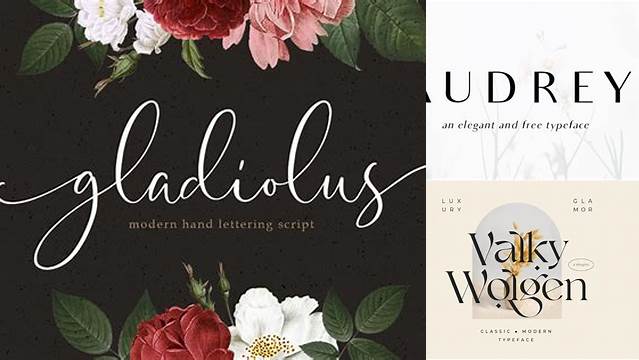
Elegant Fonts: Free TTF Downloads For Stunning Designs
In the world of design, elegant fonts play a crucial role in conveying sophistication, style, and a touch of class. Elegant fonts are more than just a means to display text; they are a vital element in shaping the overall aesthetic and message of any project, whether it’s a website, a branding campaign, or a personal invitation. The right font can elevate your design from ordinary to extraordinary, capturing the attention of your audience and leaving a lasting impression. When we talk about elegant fonts, we often think of those typefaces that exude a certain grace and refinement. These fonts have a timeless quality, making them suitable for a wide range of applications, from high-end fashion magazines to wedding invitations. They possess a unique ability to communicate sophistication and professionalism, making them a go-to choice for designers looking to add a touch of elegance to their work. Choosing the right font is like selecting the perfect outfit for an occasion; it sets the tone and atmosphere. An elegant font can evoke feelings of luxury, exclusivity, and attention to detail. Think about the fonts used by high-fashion brands or upscale restaurants – they often employ elegant typefaces to reinforce their brand image and attract their target clientele. Moreover, the availability of elegant fonts free download TTF (TrueType Font) has made it easier than ever for designers and enthusiasts to access a wide variety of stylish typefaces without breaking the bank. This accessibility has democratized design, allowing more people to create visually stunning projects. So, if you're looking to enhance your designs and add a touch of elegance, understanding the world of elegant fonts is the first step. Let’s dive into what makes a font elegant, where you can find these fonts for free, and how to use them effectively in your projects.
What Makes a Font Elegant?
So, what exactly makes a font elegant? It’s a question with many layers, but at its core, the elegance of a font comes down to its design and the emotions it evokes. Elegant fonts typically have certain characteristics that set them apart from more casual or utilitarian typefaces. These include refined letterforms, delicate strokes, and a sense of balance and harmony. Think of fonts like classic serifs, graceful scripts, and sophisticated sans-serifs – these are the types that often fall into the category of elegance. The devil is truly in the details when it comes to elegant fonts. The subtle curves, the contrast between thick and thin strokes, and the overall flow of the letters all contribute to the font's aesthetic appeal. A well-designed elegant font often feels like a piece of art in itself, with each character crafted to perfection. Another key factor is the font's legibility. An elegant font should not only look beautiful but also be easy to read, especially in larger blocks of text. This balance between aesthetics and functionality is what makes an elegant font truly successful. For example, consider the classic serif fonts like Times New Roman or Garamond. These fonts have been used for centuries and are still considered elegant due to their readability and timeless design. The serifs – those little feet or strokes at the end of the letters – add a touch of formality and sophistication. Script fonts, on the other hand, mimic the fluidity of handwriting. They can range from formal and calligraphic to more casual and whimsical, but the most elegant scripts share a sense of grace and flow. These fonts are perfect for invitations, logos, and other projects where you want to convey a personal touch. Even sans-serif fonts, which lack serifs, can be elegant. Fonts like Helvetica or Futura have a clean, modern elegance that makes them suitable for a wide range of applications. The key is in the proportions and the overall balance of the letterforms. In essence, an elegant font is one that combines beauty, legibility, and a timeless quality. It’s a font that feels both refined and approachable, making it a valuable asset in any designer’s toolkit.
How to Choose the Right Elegant Font for Your Project
Choosing the right elegant font for your project can feel like a daunting task, especially with so many beautiful options available. However, with a clear understanding of your project’s goals and the message you want to convey, you can narrow down your choices and select the perfect typeface. The first step is to consider the purpose of your project. Are you designing a wedding invitation, a logo for a luxury brand, or a website for a high-end boutique? The nature of your project will heavily influence the type of elegant font that is most appropriate. For instance, a formal wedding invitation might call for a classic script font, while a modern logo might benefit from a clean and sophisticated sans-serif. Think about the tone and style you want to communicate. Do you want your design to feel timeless and traditional, or contemporary and chic? Different elegant fonts evoke different emotions, so it’s crucial to choose a font that aligns with your desired aesthetic. A serif font like Garamond, for example, has a timeless and sophisticated feel, making it ideal for projects that require a touch of classic elegance. On the other hand, a modern sans-serif font like Helvetica can convey a sense of clean, minimalist elegance, perfect for contemporary designs. Legibility is another crucial factor to consider. While elegant fonts are beautiful, they also need to be readable, especially in larger blocks of text. Avoid fonts that are overly ornate or have intricate details that can make them difficult to read. Choose a font that strikes a balance between aesthetics and readability. Test your chosen font in different sizes and contexts to ensure it remains legible. Pay attention to the font pairing. The fonts you choose to use together can either enhance or detract from your design. A good rule of thumb is to pair an elegant font with a simpler, more neutral font. For example, you might pair a script font with a clean sans-serif for a balanced and harmonious look. Avoid pairing two highly decorative fonts, as this can create a cluttered and overwhelming design. Consider the font’s personality. Every font has its own unique personality and character. Some fonts feel formal and traditional, while others feel more modern and playful. Choose a font that reflects the personality of your brand or project. If you’re designing for a luxury brand, you might opt for a font that exudes sophistication and exclusivity. If you’re designing for a more casual brand, you might choose a font that feels elegant but also approachable. Don’t be afraid to experiment and try out different fonts. The best way to find the perfect elegant font is to play around with different options and see what works best for your project. Download several fonts that you like and try them out in your design. Consider how the font looks in different sizes, colors, and contexts. Get feedback from others to get a fresh perspective. Ultimately, the right elegant font is the one that best communicates your message and enhances your overall design. By considering the purpose of your project, the tone and style you want to convey, legibility, font pairing, and the font’s personality, you can make an informed decision and choose a font that will elevate your work to the next level.
Tips for Using Elegant Fonts Effectively
So, you've downloaded some stunning elegant fonts free download TTF, but how do you use them effectively in your designs? Using elegant fonts is not just about picking a beautiful typeface; it’s about understanding how to incorporate it into your project in a way that enhances the overall aesthetic and message. Here are some tips to help you make the most of your elegant fonts. First and foremost, use elegant fonts sparingly. Elegance is often best conveyed through subtlety and restraint. Overusing an elegant font can make your design feel cluttered and overwhelming. Instead, use your elegant font for key elements such as headings, logos, or invitations, and pair it with a simpler font for body text. This will create a balanced and harmonious design. Think about contrast. Contrast is a powerful design tool, and it applies to typography as well. When using an elegant font, consider contrasting it with a more neutral font to create visual interest and hierarchy. For example, you might use an elegant script font for your headings and a clean sans-serif font for your body text. This contrast will draw the eye and make your design more engaging. Pay attention to kerning and tracking. Kerning refers to the spacing between individual letters, while tracking refers to the overall spacing between all the letters in a word or line. Adjusting the kerning and tracking can significantly impact the readability and aesthetics of your font. Elegant fonts often have delicate letterforms, so it’s crucial to ensure that the spacing is just right. Too much or too little spacing can make the font look awkward or difficult to read. Consider line height and leading. Line height, also known as leading, is the vertical space between lines of text. The right line height can improve readability and make your text feel more open and airy. When using elegant fonts, it’s often a good idea to increase the line height slightly to give the letters room to breathe. This is especially important for body text. Think about color. Color plays a vital role in design, and it can also impact the way your font looks. When using elegant fonts, consider using colors that complement the font’s style and personality. For example, a classic serif font might look beautiful in a deep navy or a rich burgundy, while a modern sans-serif font might shine in a crisp white or a sophisticated gray. Avoid using colors that clash with your font or make it difficult to read. Be mindful of the context. The context in which you use your elegant font is crucial. A font that looks stunning on a wedding invitation might not be appropriate for a corporate report. Consider the overall style and tone of your project and choose a font that aligns with it. If you’re designing for a formal event, a classic script or serif font might be the perfect choice. If you’re designing for a modern brand, a clean sans-serif font might be more appropriate. Test your font. Before finalizing your design, always test your font in different sizes and contexts. Print out your design and see how the font looks in print. View your design on different devices to ensure that the font renders correctly. Get feedback from others to get a fresh perspective. Ultimately, using elegant fonts effectively is about understanding the nuances of typography and paying attention to the details. By using these tips, you can create designs that are not only beautiful but also professional and effective.
Conclusion: Embrace the Elegance
In conclusion, elegant fonts are a powerful tool for adding sophistication and style to your designs. Whether you're working on a wedding invitation, a logo, or a website, the right elegant font can elevate your project and leave a lasting impression. With the abundance of elegant fonts free download TTF options available, there's no reason not to explore the world of elegant typography. Remember, the key to using elegant fonts effectively is to understand what makes a font elegant, where to find high-quality options, and how to incorporate them into your designs in a way that enhances the overall aesthetic and message. By considering the purpose of your project, the tone and style you want to convey, legibility, font pairing, and the font’s personality, you can choose the perfect elegant font for your needs. Don't be afraid to experiment and try out different fonts to see what works best for you. The world of typography is vast and diverse, and there's always something new to discover. Using elegant fonts sparingly, contrasting them with simpler fonts, paying attention to kerning and tracking, considering line height and leading, being mindful of color, and testing your font in different contexts are all essential tips for creating effective and beautiful designs. So, go ahead and embrace the elegance! Download some free TTF fonts and start experimenting. With a little practice and a keen eye for design, you can create projects that are both visually stunning and impactful. Elegant typography is a skill that can be honed over time, so the more you practice, the better you'll become at choosing and using elegant fonts effectively. Whether you're a professional designer or a hobbyist, the ability to use elegant fonts well is a valuable asset. So, dive in, explore, and let your creativity shine. The world of elegant design awaits!